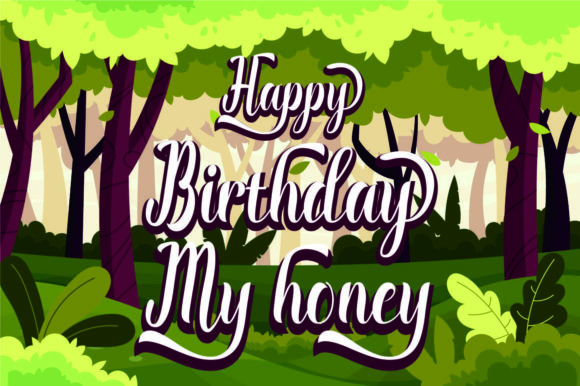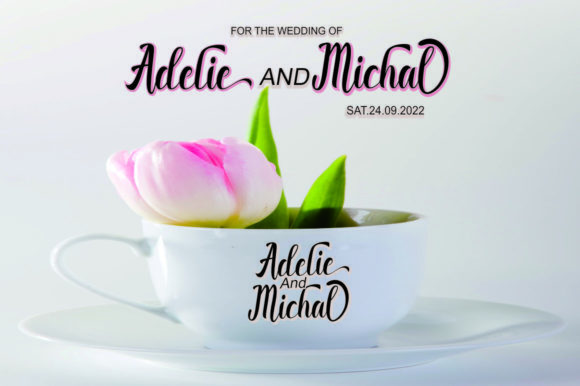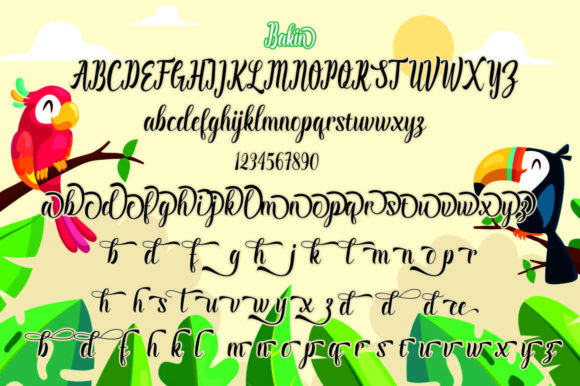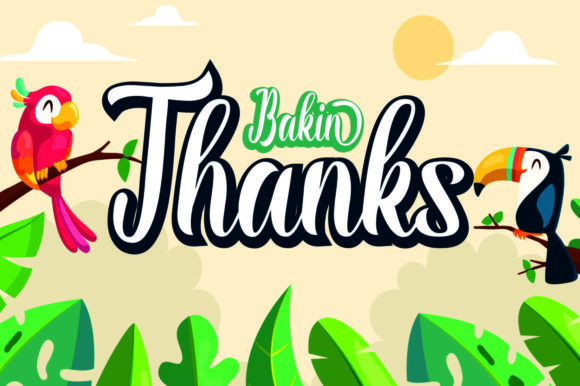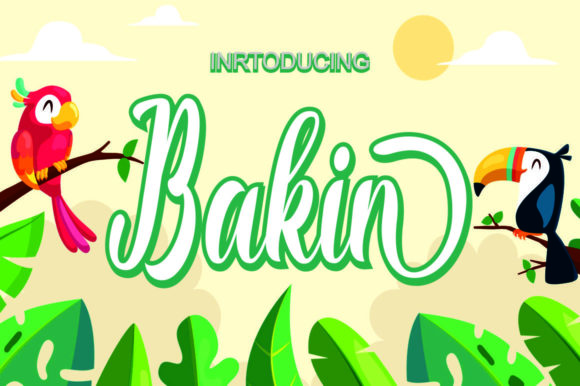
Bakin Font: A Lovely Script Font for Your Creative Projects
Are you a designer or crafter looking for a beautiful script font to elevate your creative projects? Look no further than Bakin Font! This lovely font is well-balanced, features a nice flow, and is perfect for a variety of design applications. In this article, we’ll take a closer look at Bakin Font and explore its features, benefits, and uses.
What is Bakin Font?
Bakin Font is a script font that is designed to be both elegant and versatile. It features a smooth, flowing script style that is perfect for creating beautiful text-based designs. The font is well-balanced, with a nice flow that makes it easy to read and visually appealing.
One of the standout features of Bakin Font is that it is PUA (Private Use Area) encoded. This means that you can access all of the glyphs and swashes with ease, giving you even more creative possibilities. With PUA encoding, you can easily insert special characters, ligatures, and other unique glyphs into your designs, taking them to the next level.
Features and Benefits of Bakin Font
So, what makes Bakin Font so special? Here are just a few of its key features and benefits:
• Lovely script style: Bakin Font features a beautiful, flowing script style that is perfect for creating elegant text-based designs.
• Well-balanced and easy to read: The font is carefully crafted to be well-balanced and easy to read, making it perfect for body text and headlines.
• PUA encoded: With PUA encoding, you can access all of the glyphs and swashes with ease, giving you even more creative possibilities.
• Versatile: Bakin Font is perfect for a variety of design applications, including branding, packaging, and digital design.
Uses for Bakin Font
So, what can you use Bakin Font for? The possibilities are endless! Here are a few ideas to get you started:
• Branding and logos: Bakin Font is perfect for creating elegant and sophisticated brand identities.
• Packaging design: The font is great for creating beautiful labels, packaging, and other materials.
• Digital design: Bakin Font can be used to create stunning digital designs, including social media graphics, blog posts, and more.
• Crafting and scrapbooking: The font is also perfect for crafters and scrapbookers who want to add a personal touch to their projects.
Tips for Using Bakin Font
Here are a few tips for getting the most out of Bakin Font:
• Experiment with different sizes and colors: Bakin Font looks great in a variety of sizes and colors, so don’t be afraid to experiment and find the perfect combination for your design.
• Use it with other fonts: Bakin Font pairs well with other fonts, so try combining it with a sans-serif font for a bold and eye-catching look.
• Take advantage of PUA encoding: With PUA encoding, you can access all of the glyphs and swashes with ease, so be sure to explore these extra features and add them to your design.
In conclusion, Bakin Font is a lovely script font that is perfect for designers and crafters who want to add a touch of elegance and sophistication to their projects. With its well-balanced design, nice flow, and PUA encoding, this font is versatile and easy to use. Whether you’re creating branding materials, packaging, digital designs, or crafting projects, Bakin Font is a great choice. So why not give it a try and see what beautiful designs you can create?